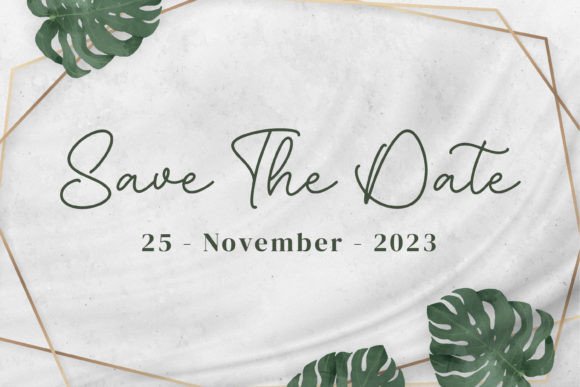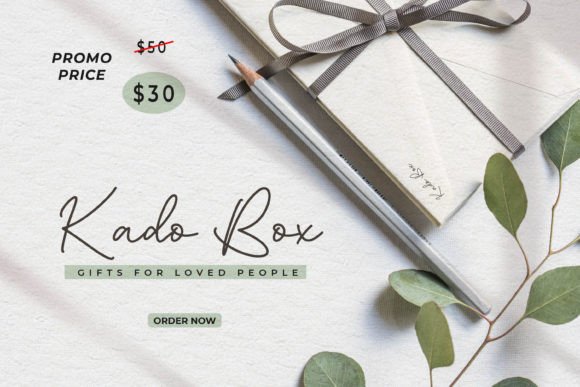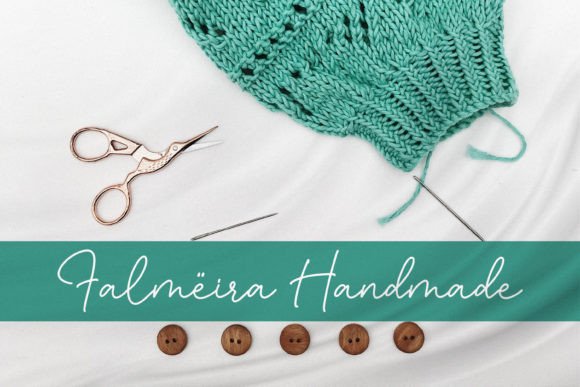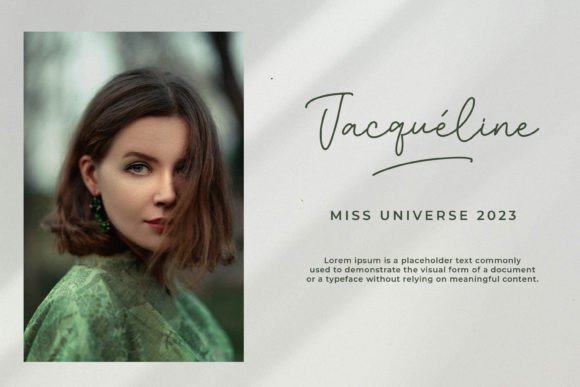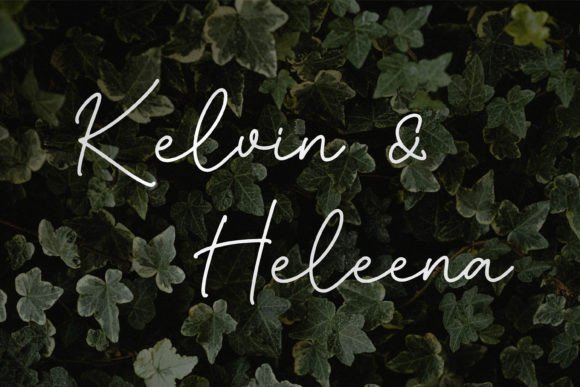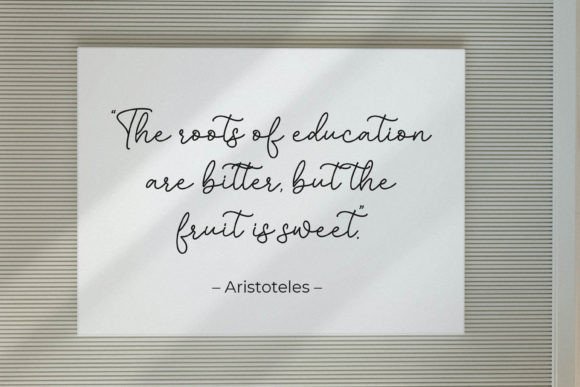
The Elegance of Angelique Font: Unlocking Your Creative Potential
Have you ever stared at a blank page, trying to bring a creative idea to life, only to be stopped by the perfect font to match your vision? This is a moment we’ve all been there, and it’s frustrating to say the least. But what if I told you that there’s a magical script font that can turn any creative idea into a stunning piece of art?
Meet Angelique Font, a beautifully crafted script font that’s perfect for adding a touch of elegance to your designs. Whether you’re creating graphics for Instagram, crafting calligraphy scripts for DIY projects, or simply looking for a font to elevate your branding, Angelique Font is the perfect choice. With its unique combination of sophistication and whimsy, this font is a valuable asset for designers who want to take their work to the next level.
Angelique Font Key Features
- Font Family: Angelique
- Unique Characteristics: Angelique is a high-end, luxury script font featuring elegant connections, subtle flair, and intricate details, making it ideal for premium branding, invitations, and special events.
Angelique Font Review
As a designer, I’ve had the chance to work with various fonts, and Angelique is definitely one of the more intriguing ones.
Here’s what works well: ✨ The elegant, cursive script style gives it a touch of sophistication and refinement. It’s perfect for titles, headings, and other design elements where a sense of luxury is desired. ✨ The font also has a wide range of language support, making it suitable for global projects.
However, there are some limitations to consider: ⚠️ The font can be quite ornate, which might make it difficult to read at smaller sizes or in environments with low contrast. Additionally, some characters might not display correctly on certain devices or platforms. ⚠️
Overall, Angelique Font is a solid choice for designers who want to add a touch of elegance to their projects. While it may not be suitable for all applications, it’s definitely worth considering for high-end or luxury branding projects.
- Font style: Elegant cursive script
- Language support: Wide range
- Legibility: Can be challenging at smaller sizes or low contrast environments
Angelique Font is perfect for:
- Formal event invitations
Alternatives to Angelique Font for Designers
Playfair Display is an elegant, high-end font ideal for luxury brands, fashion magazines, and high-end product labels. Its unique combination of ornate and modern elements makes it perfect for creating a sophisticated look.
Compared to Angelique Font, Playfair Display has a more refined and classic feel, making it suitable for formal and upscale projects. While Angelique Font has a softer, more feminine touch, Playfair Display exudes luxury and sophistication.
Great Vibes is a modern, elegant script font perfect for creative and artistic projects. Its fluid, cursive design makes it ideal for quotes, headlines, and branding for businesses in the creative industry.
Compared to Angelique Font, Great Vibes has a more dynamic and expressive feel, making it suitable for projects that require a touch of personality and creativity. While Angelique Font has a softer, more delicate touch, Great Vibes is more playful and energetic.